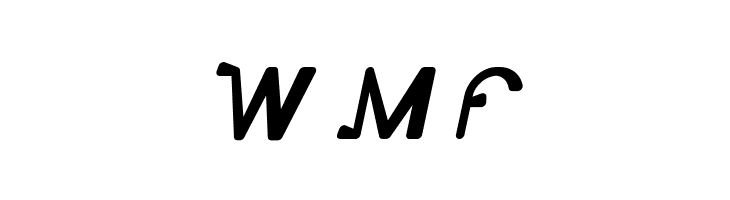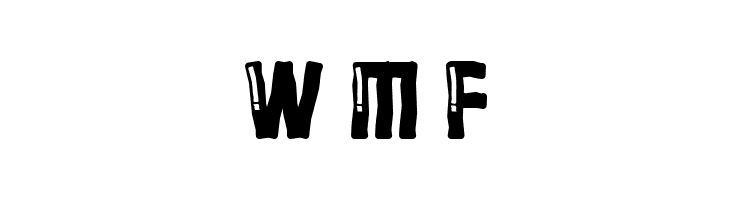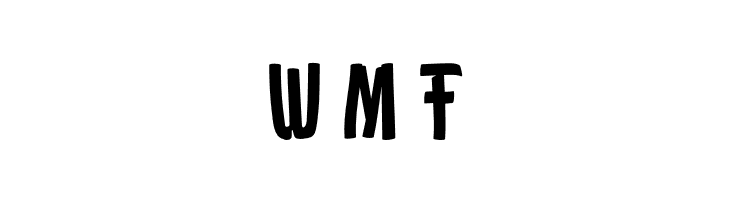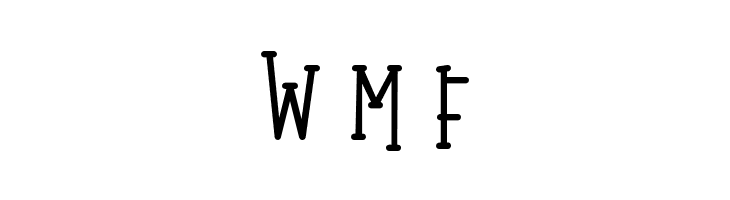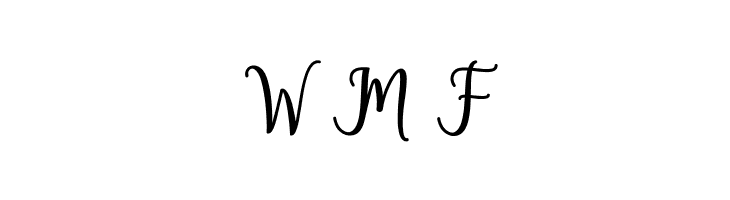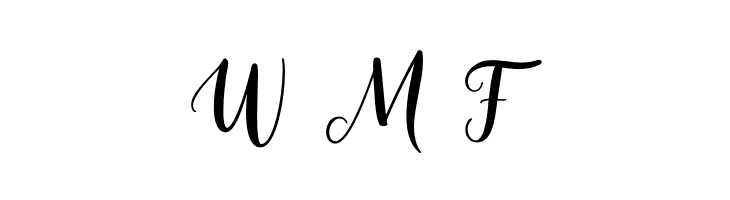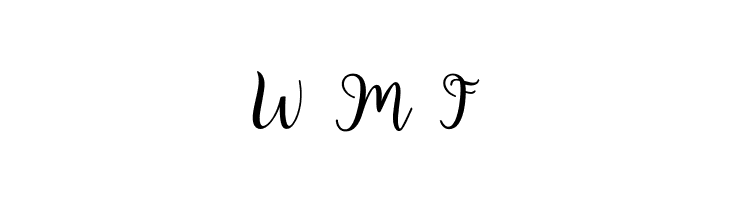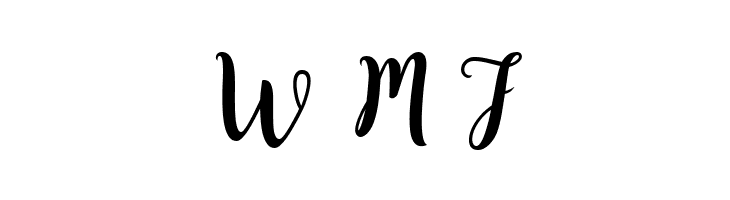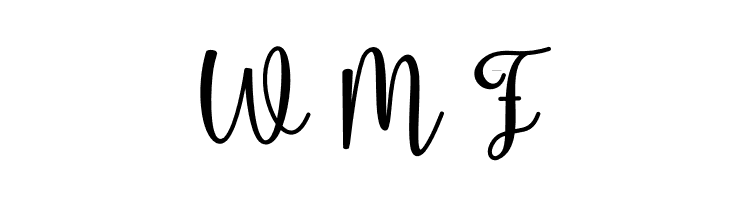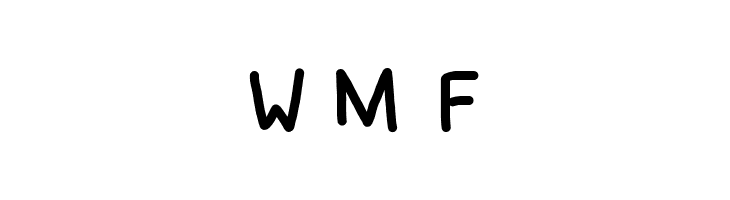
A playful, hand-drawn font with dynamic strokes and whimsical charm.
A bold, dynamic font with a modern yet vintage charm.
A playful, bold, and rounded font with a hand-drawn, vintage charm.
A charming and elegant script font with flowing, cursive letterforms.
A playful and charming italic font with a whimsical touch.
A playful, bold, and rounded font with a hand-drawn aesthetic and charming heart details.
A playful, whimsical font with dynamic strokes and charming character details.
A playful, hand-drawn font with bold, irregular strokes and a whimsical charm.
A bold, playful font with a hand-drawn, rustic charm.
A charming, flowing script font with smooth, continuous strokes and elegant curves.
A charming and elegant script font with flowing, cursive letterforms.
A playful, handwritten-style font with a whimsical and charming design.
A charming script font with elegant, flowing characters and moderate stroke contrast.
A bold, decorative font with intricate detailing and vintage charm.
An elegant and flowing script font with graceful curves and artistic charm.
A charming and elegant script font with flowing, cursive letterforms.
A charming, playful script font with elegant, flowing letterforms.
A charming script font with a handwritten, flowing style.
A playful, handwritten font with a whimsical and childlike charm.
A charming and elegant script font with a handwritten appearance.
A charming and elegant script font with flowing, interconnected letterforms.
A playful, hand-drawn font with bold, rounded characters and whimsical charm.
A charming and elegant handwritten font with fluid, cursive strokes.
A charming, handwritten style with smooth, slanted strokes.
A bold, cursive font with a playful, vintage charm.
A playful, handwritten font with a whimsical and charming style.
A playful cursive font with fluid, connected characters and a nostalgic charm.
A charming script font with elegant, flowing lines and a handwritten appearance.
A playful handwritten font with irregular strokes and charming imperfections.
A charming and fluid script font with elegant cursive letters.
A charming and elegant script font with playful, whimsical curves.
A charming and elegant script font with fluid, graceful strokes.
A charming handwritten script with smooth, flowing lines and connected letters.
A charming, elegant handwritten font with smooth, flowing cursive letters.
A playful, bold font with a bubbly, rounded style and cartoonish charm.